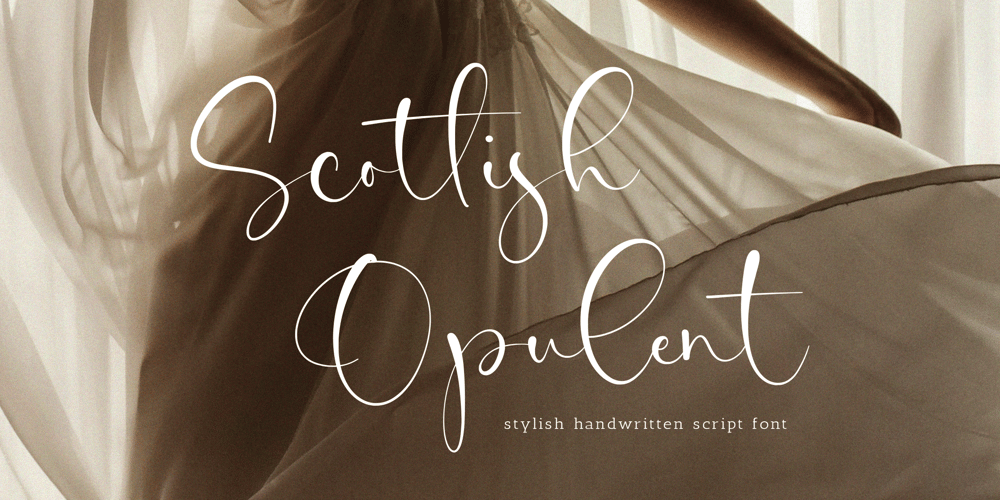
Scottish Opulent Font Family was designed by Wara Sigit Tri Pamungkas and published by Timurtype. Scottish Opulent contains 1 styles and family package options. Introducing by Timur typeProudly Present, Scottish Opulent A Handwritten FontScottish Opulent is perfect for product packaging, branding project, megazine, social media, wedding, or just used to express words above the background.Scottish Opulent also multilingual support.Enjoy the font.Thank you!